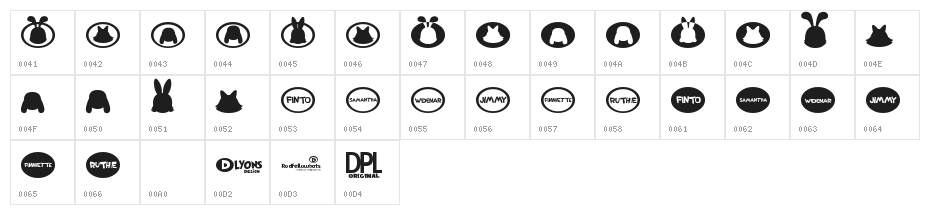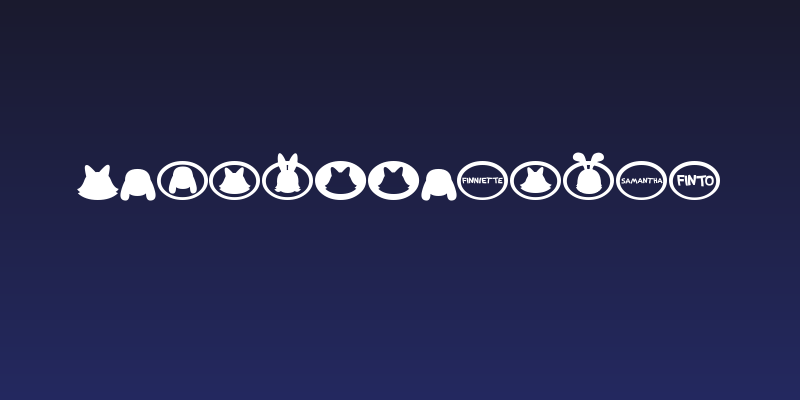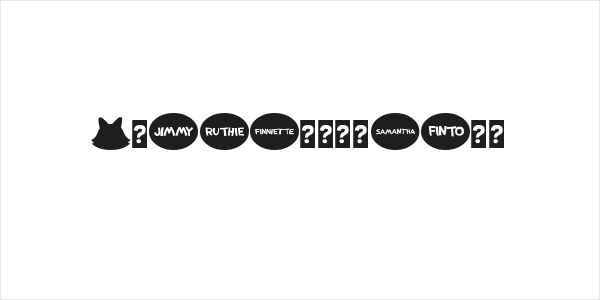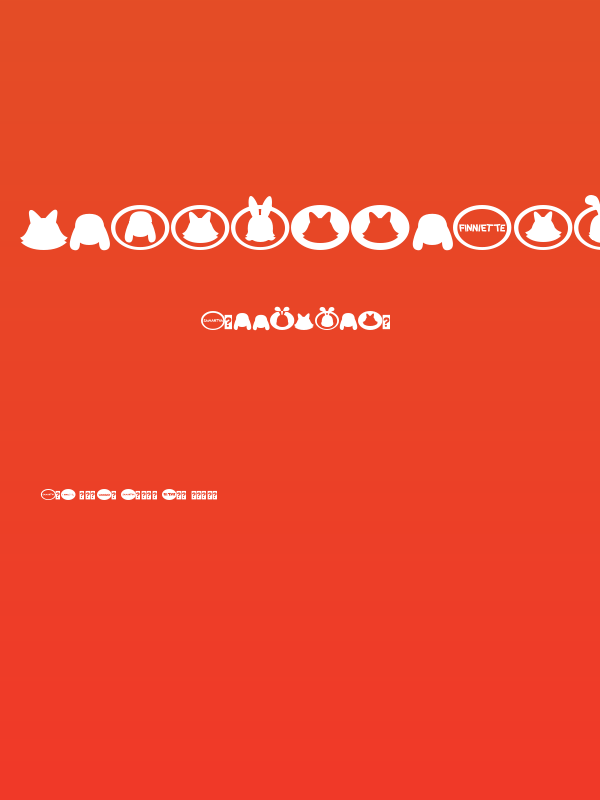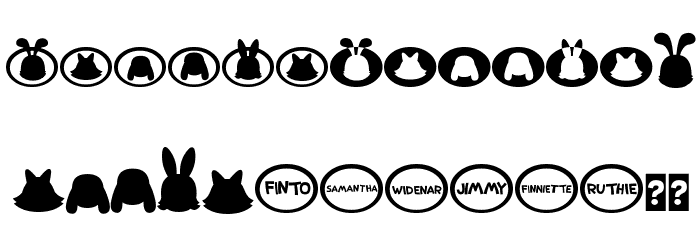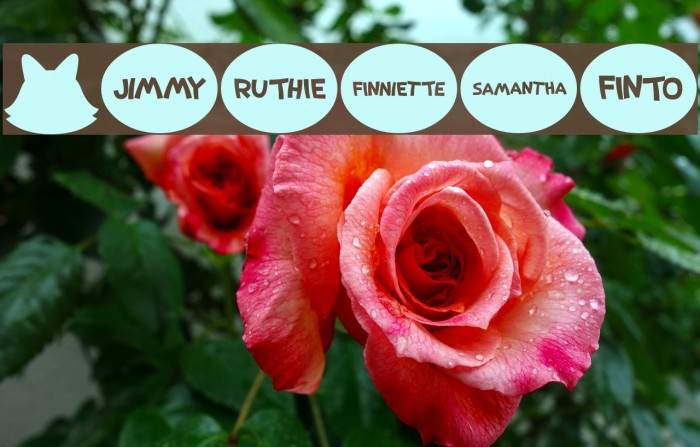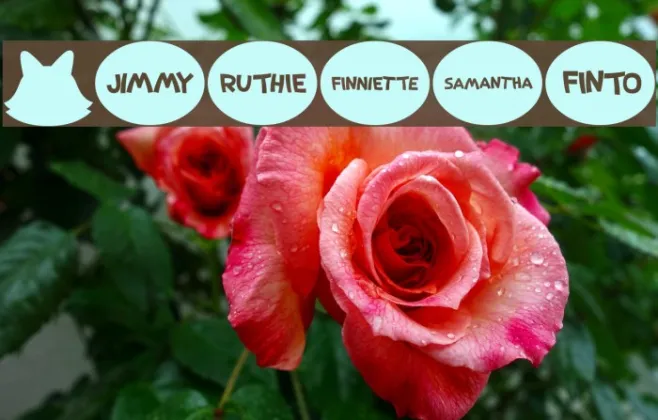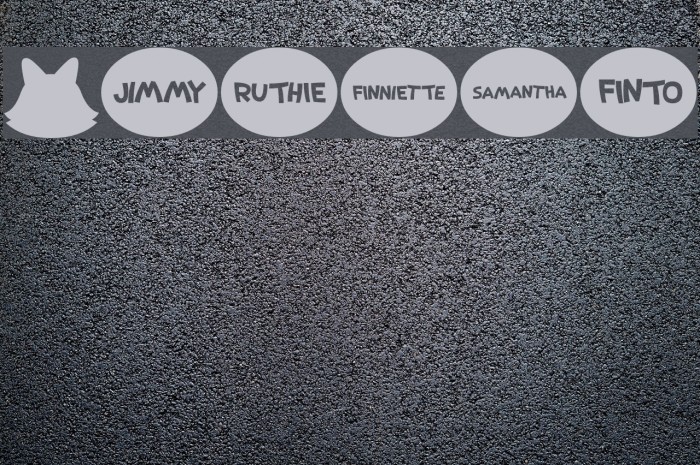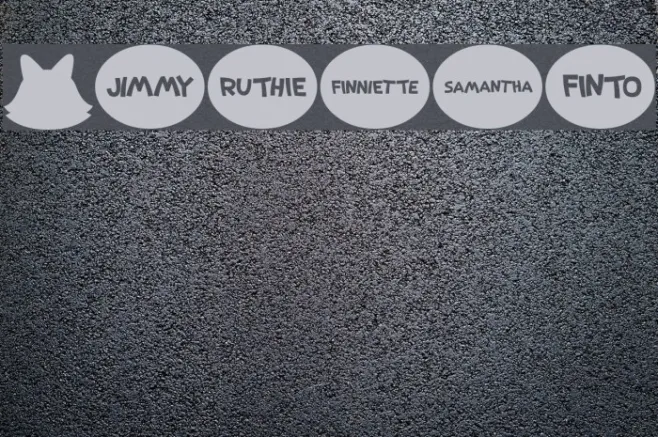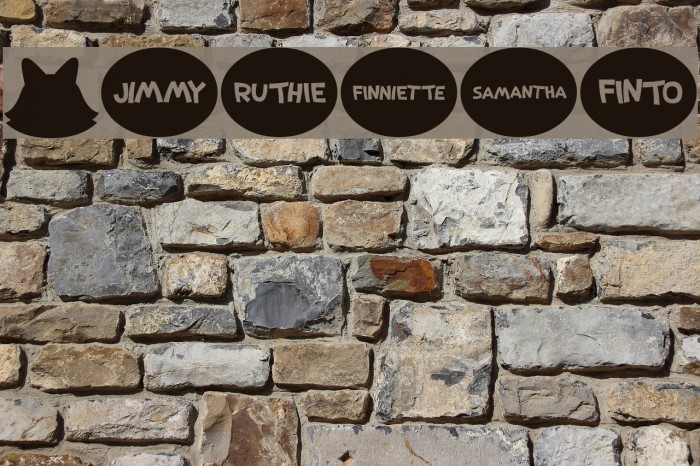
This is not a traditional font but rather a collection of playful, cartoonish silhouettes and names enclosed in circles. The design features various animal-like shapes and names such as FINTO, SAMANTHA, WIDENAR, JIMMY, FINNIETTE, and RUTHIE. Each element is bold and filled, creating a strong visual impact. The style is whimsical and decorative, suitable for creative and informal projects.
| Use Case | Logos, Decorative elements |
| Proposed Projects | Ideal for children's books, playful branding, or decorative elements in creative projects. |